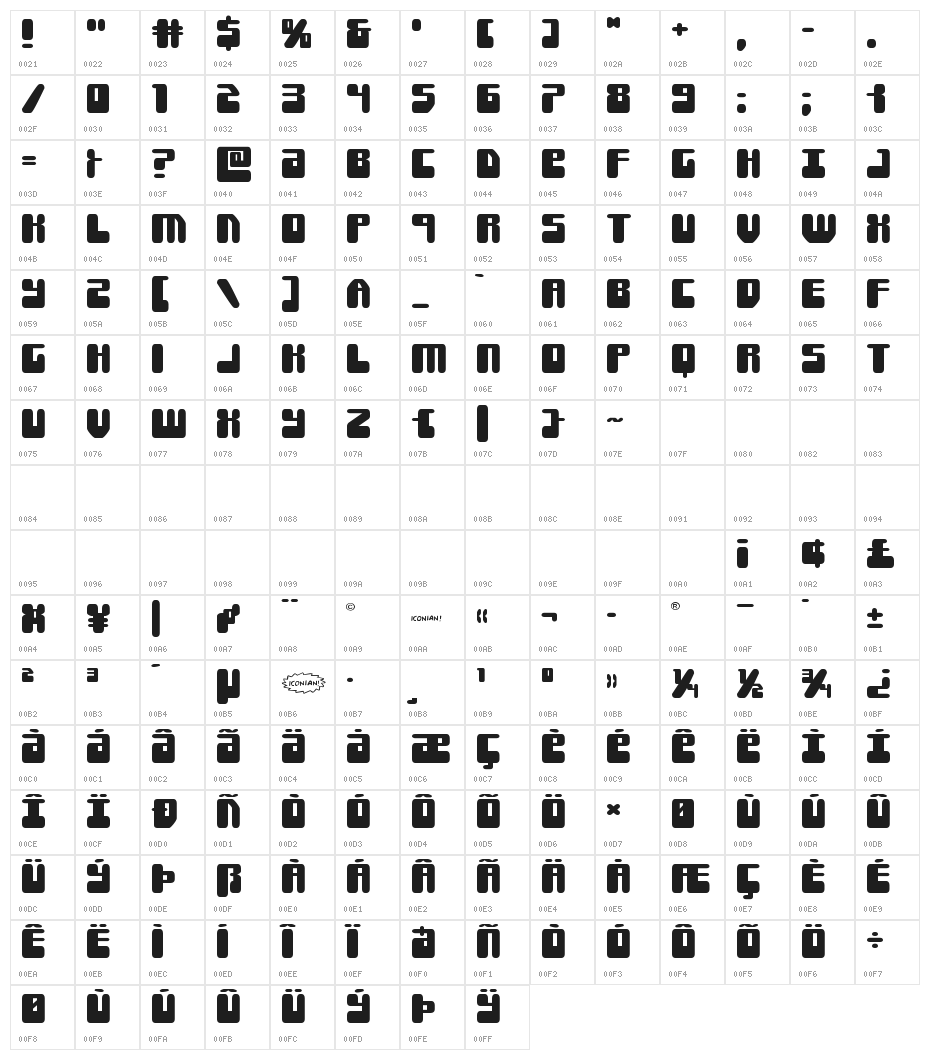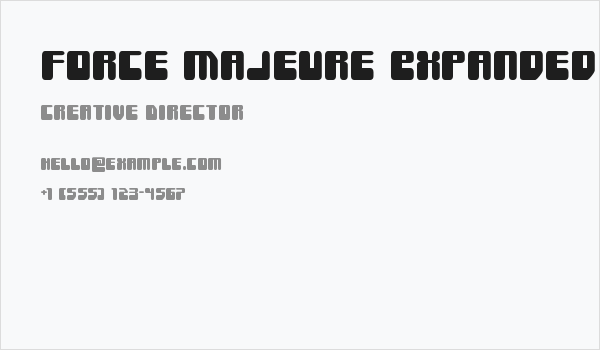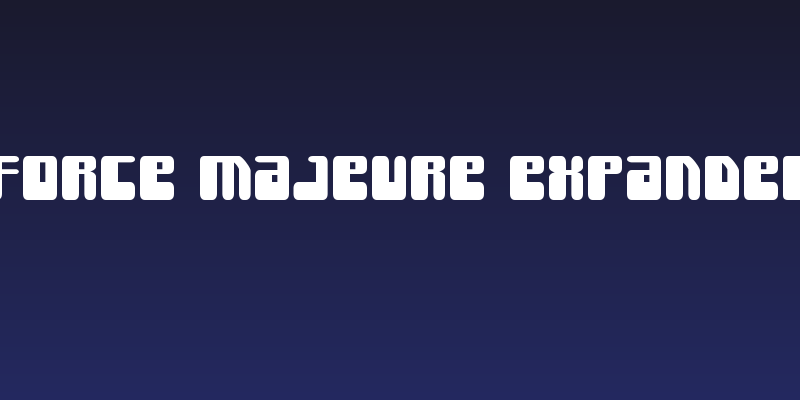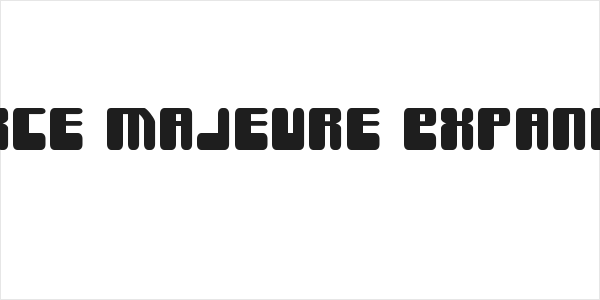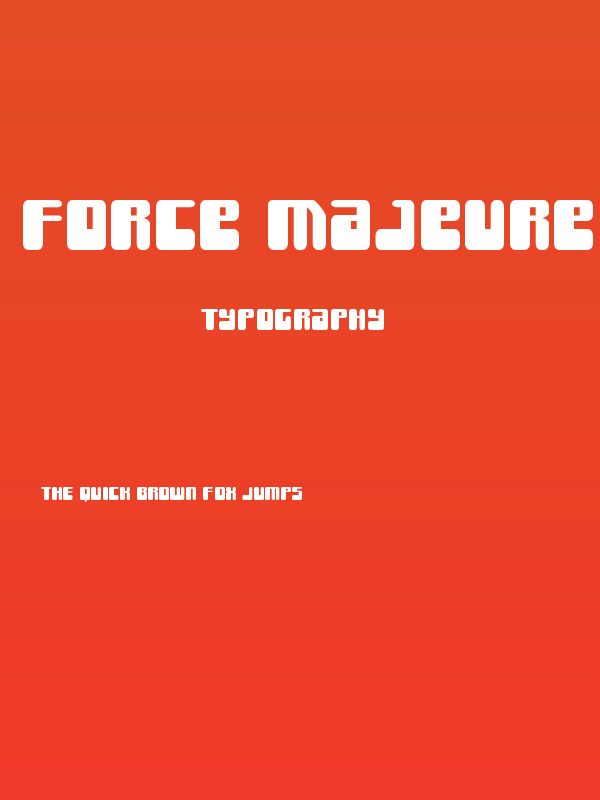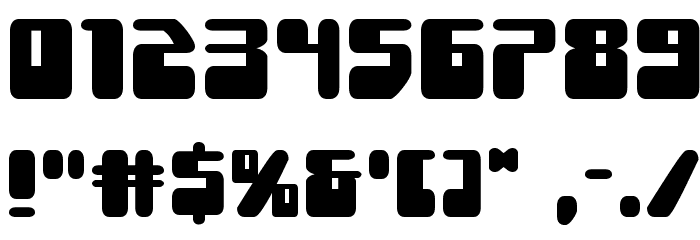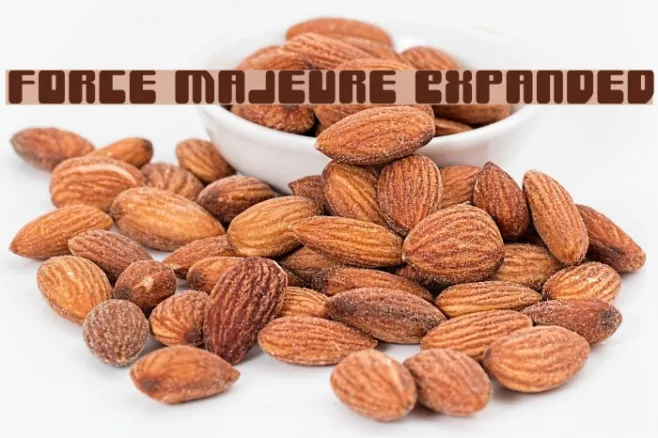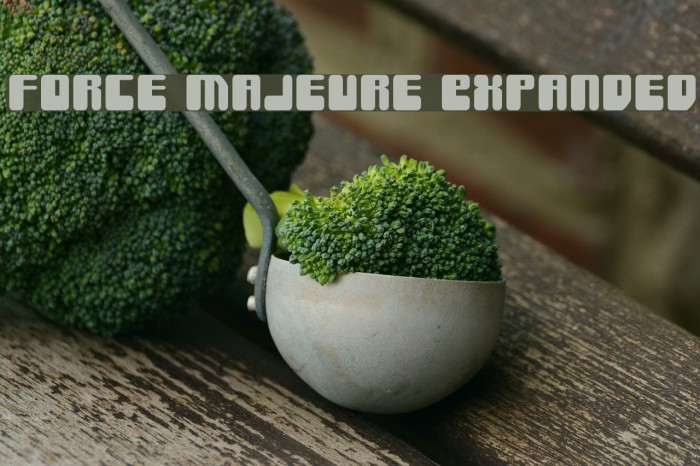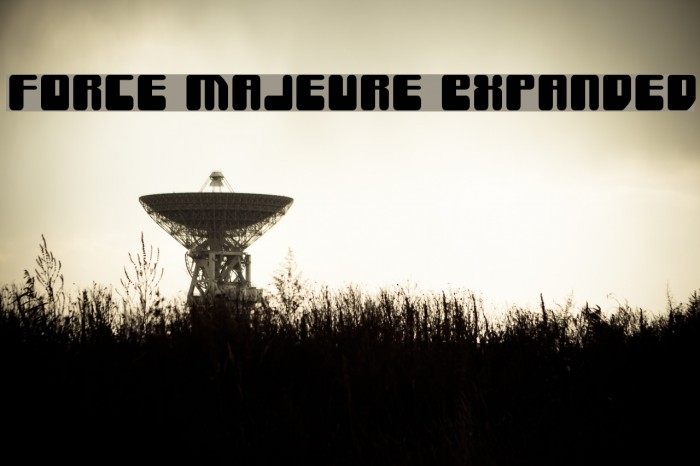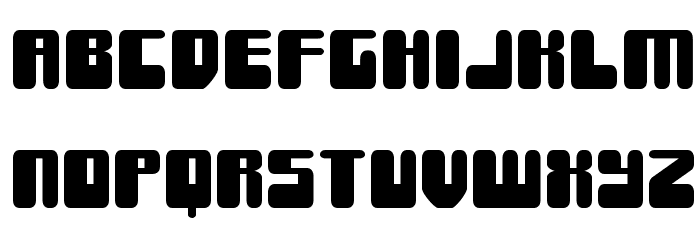
Force Majeure Expanded Font
Force Majeure Expanded Description
This font features a bold and geometric design with a distinctly modern and futuristic aesthetic. The characters are constructed with thick, uniform strokes that create a strong visual impact. The rounded corners soften the overall appearance, adding a touch of approachability to the otherwise robust and industrial style. The uppercase and lowercase letters maintain a consistent width, contributing to a cohesive and harmonious look. The numerals and special characters follow the same design principles, ensuring uniformity across all glyphs. This font's expanded width and bold weight make it ideal for capturing attention and conveying a sense of strength and reliability.
| Proposed Projects | Ideal for branding, posters, headlines, and any project requiring a strong, modern aesthetic. |